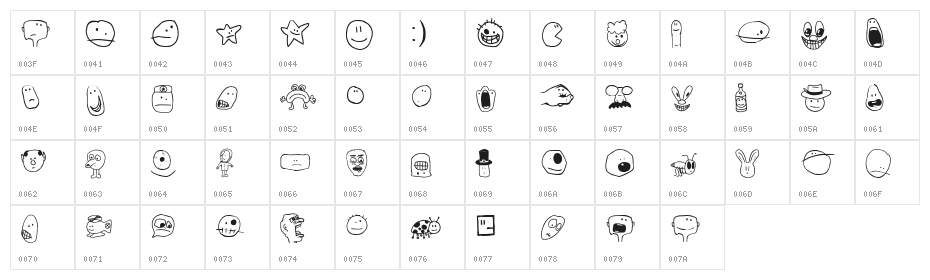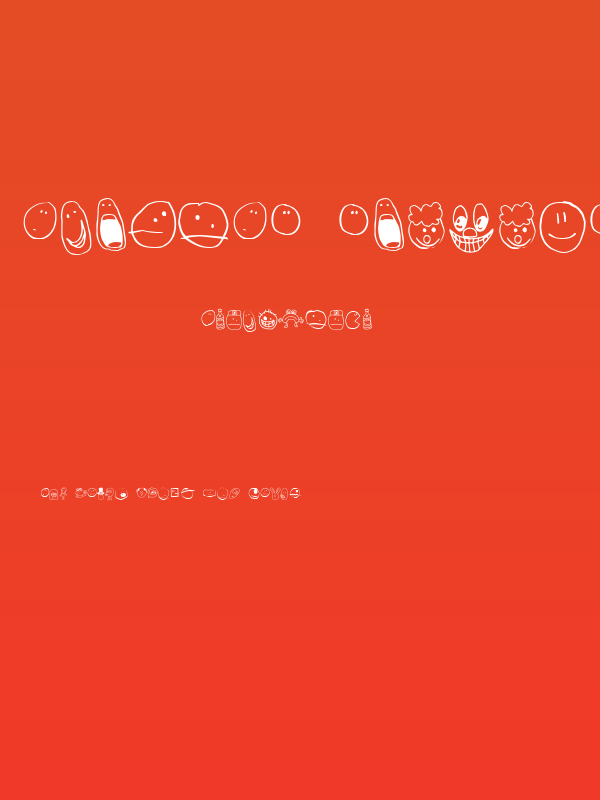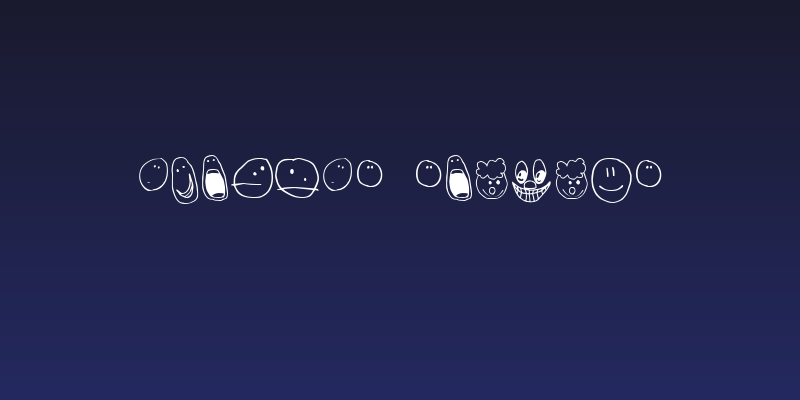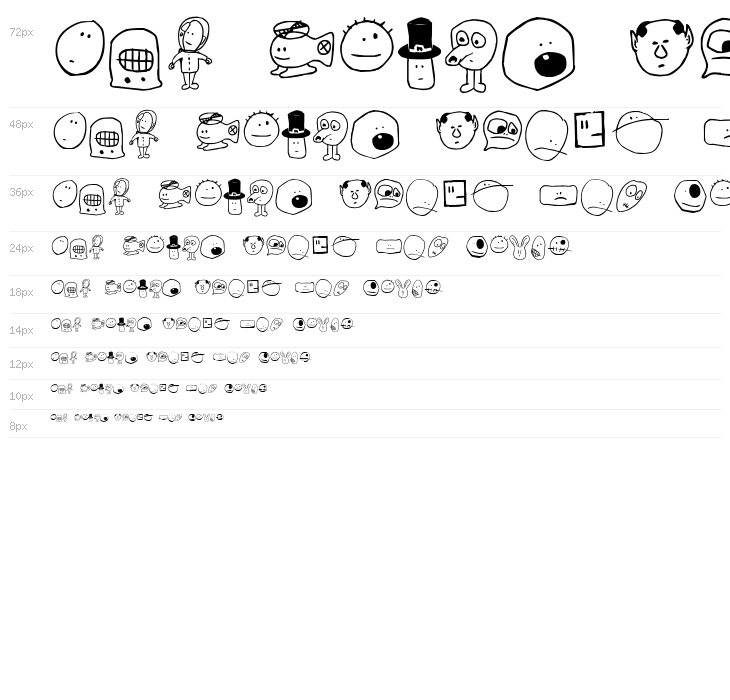
Tombats Smilies Font
Tombats Smilies Description
This is a whimsical and playful collection of smiley and character illustrations, each with a unique and quirky expression. The designs are hand-drawn, featuring a variety of faces and objects that convey a sense of humor and creativity. The characters range from simple smiley faces to more complex figures with hats and other accessories. The style is informal and cartoonish, making it ideal for projects that require a fun and lighthearted touch. The illustrations are bold and clear, ensuring they stand out in any design context.
| Overall Style | Whimsical, Playful, Cartoonish |
| Use Case | Decorative elements, Illustrations, Fun projects |
| Proposed Projects | Ideal for children's books, playful branding, greeting cards, and social media graphics. |